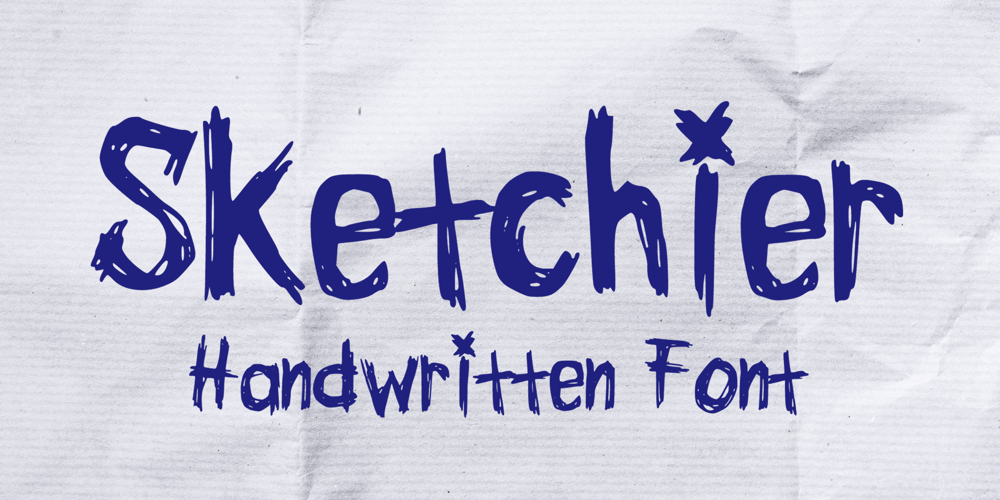
Sketchier Font Family was designed by Gabriel Valentinus and published by Mvmet. Sketchier contains 1 styles and family package options. Sketchier is a sketchy handwritten font. You can use it for anything ranging from t-shirts, book designs, and greeting cards to stickers and posters, packaging designs or anything that needs a casual touch, it will be your perfect font to pick. Fall in love with its incredibly versatile style, and use it to create lovely designs!